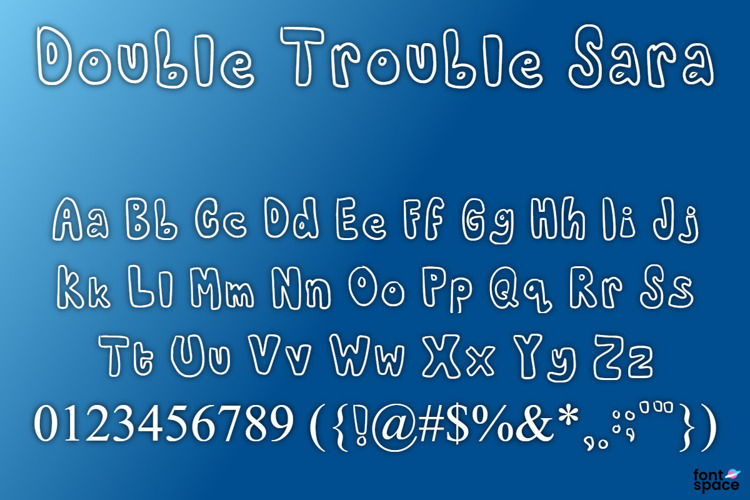
Double Trouble Sara Font
This is my handwriting in double. It pairs well with my other font.
This font is perfect for titles. You can use it for posters if you want it to look like you drew it yourself :)